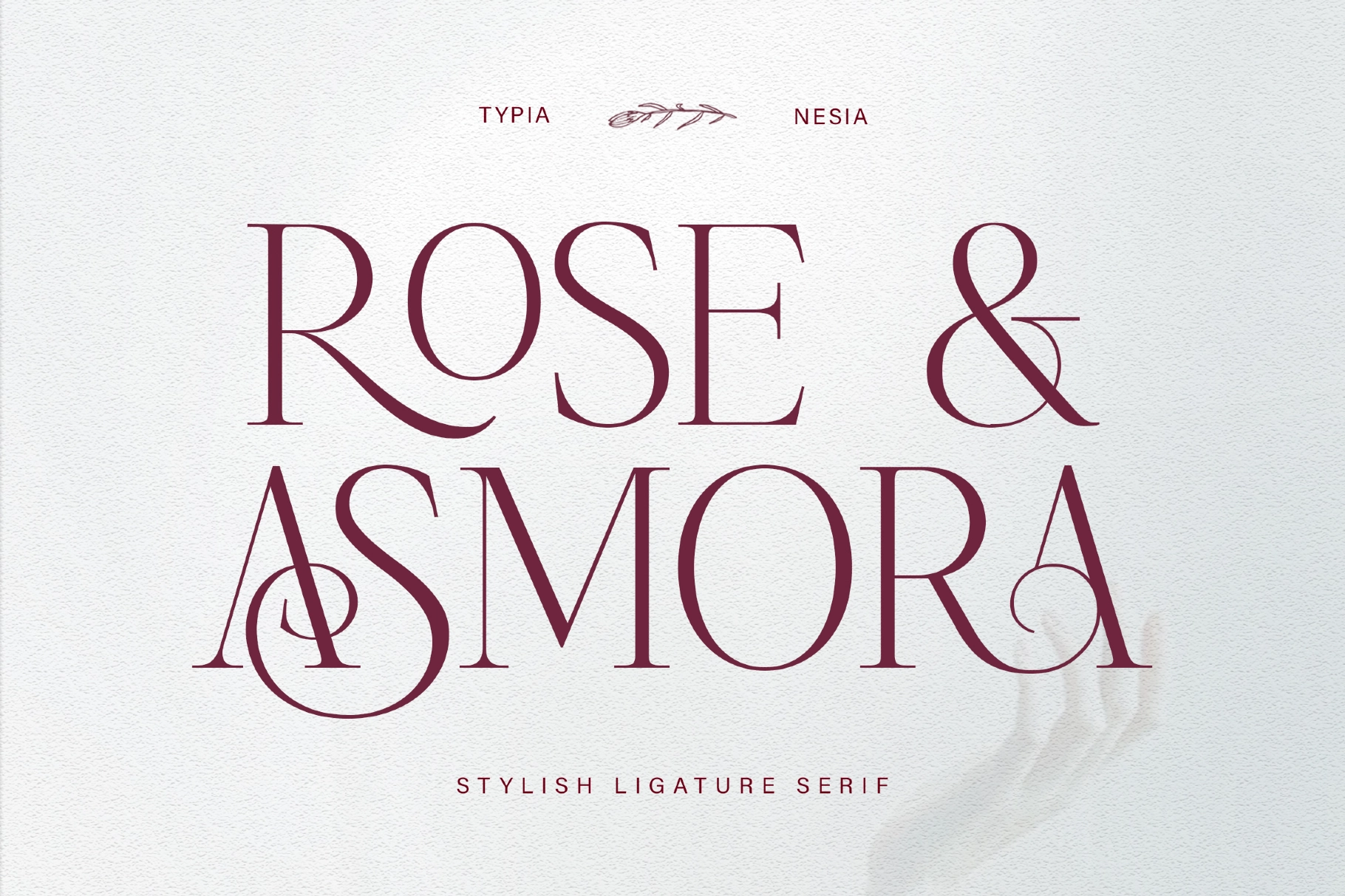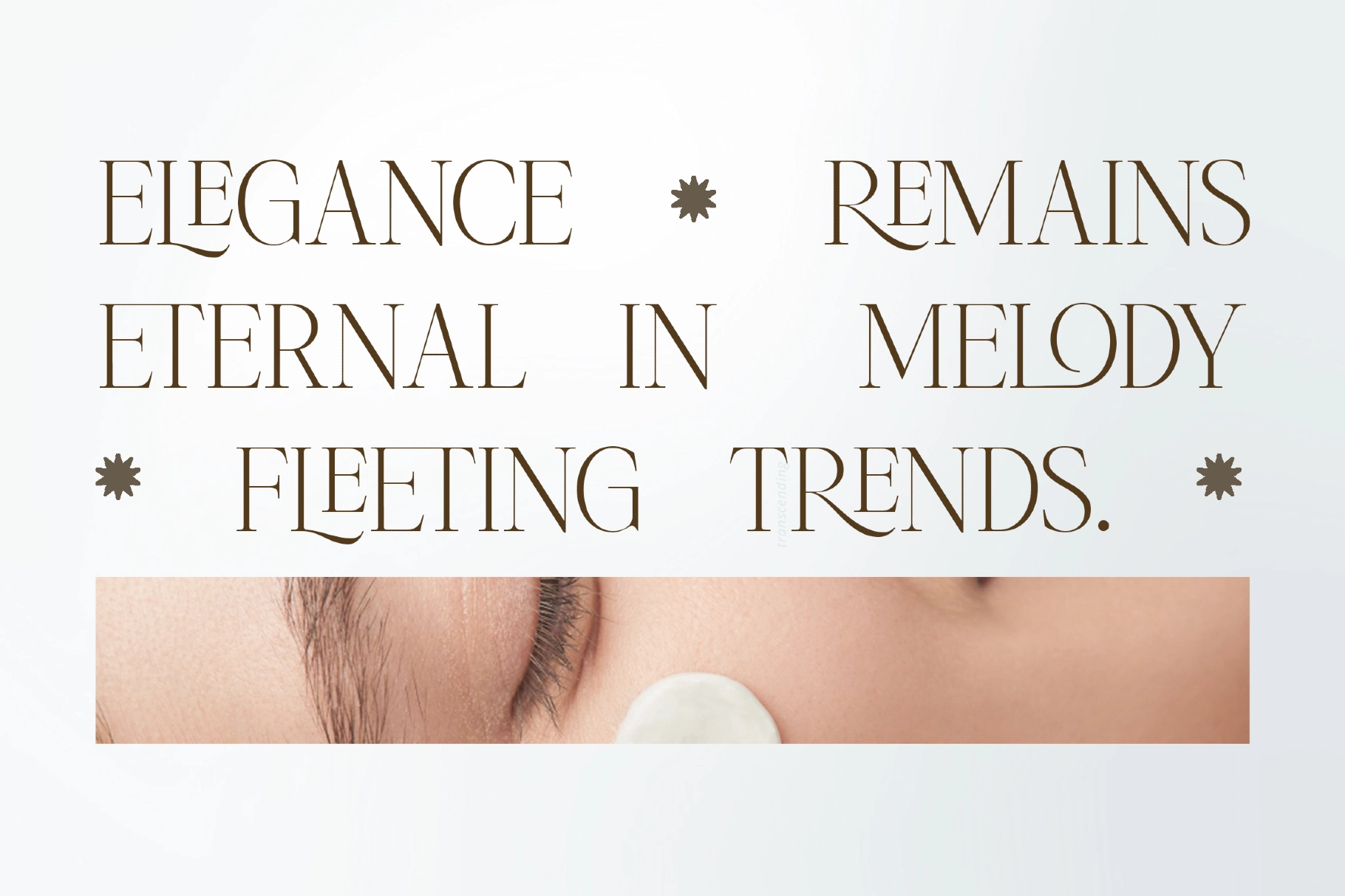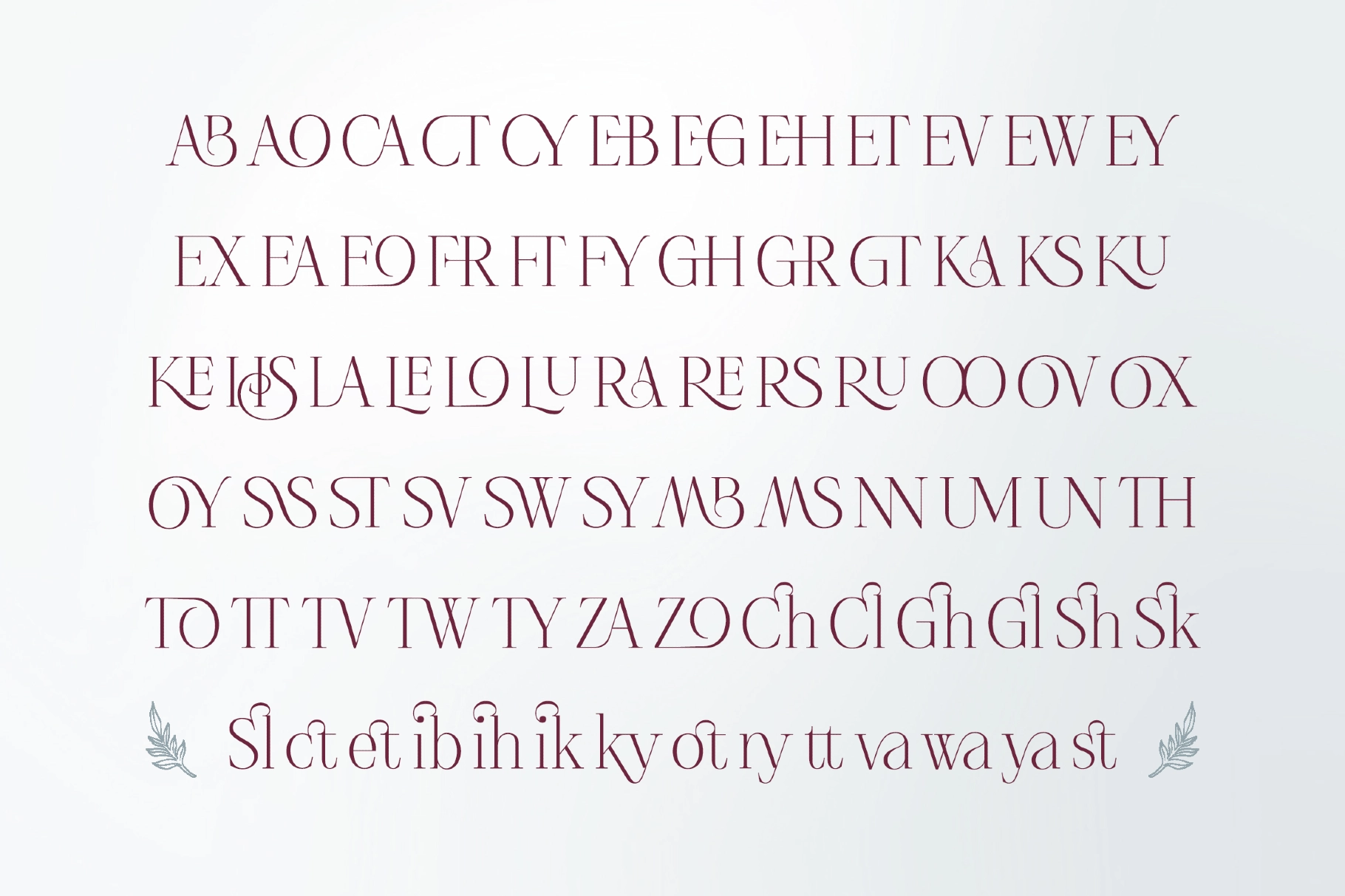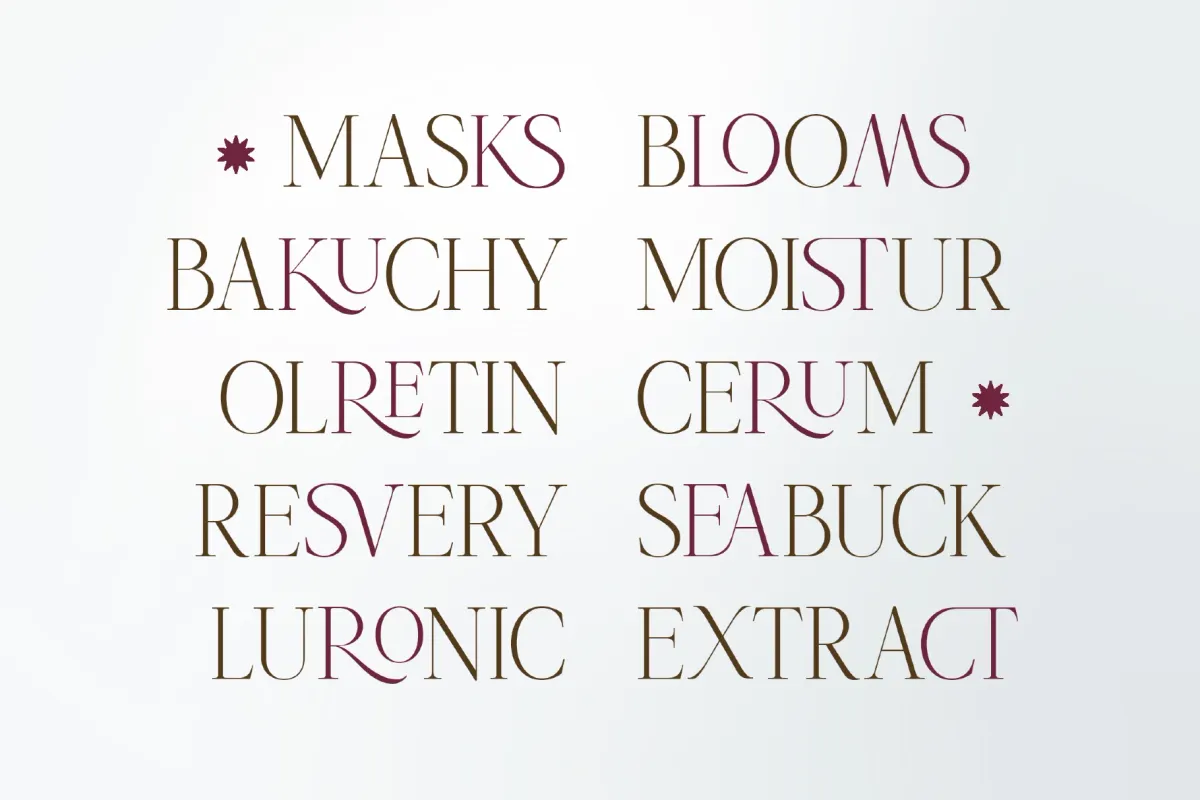
Rose & Asmora - Ligature Serif Font
Rose Asmora is a Stylish Ligature Serif font that exudes elegance and beauty with its intricate ligatures and stylish serifs. It strikes the perfect balance between classic charm and modern appeal, making it suitable for a wide range of design projects, such as branding and logo design, editorial design, wedding invitations, posters, product packaging, event invitations and announcements, digital marketing campaigns, and more, where a touch of style and Elegance is desired.
Rose & Asmora boasts ligatures that enhance the seamless connection between characters, adding to its aesthetic appeal. Crafted with expertise in serif typography and decorative design, Rose & Asmora reflects a deep understanding of aesthetics and design principles. Its Stylish Ligature Serif style showcases mastery in creating fonts that elevate the visual appeal of any project.